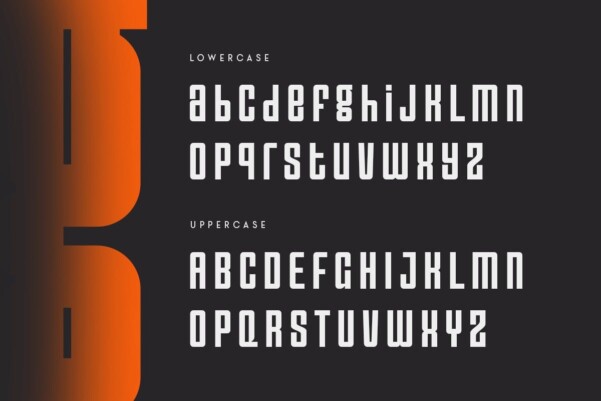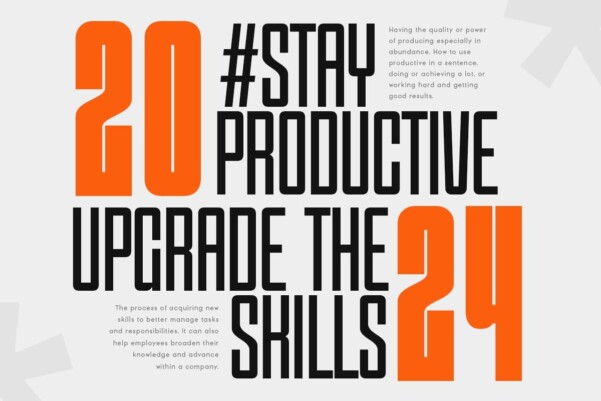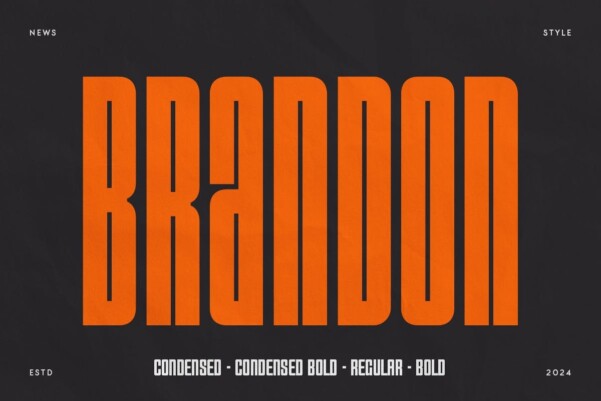
Brandon Condensed Font
Brandon Condensed Font, a unique condensed title font family we created especially for professional and modern title needs. It will give you a more unique appearance and a more effective surface . With 4 uniquely shaped weights, it will be ready to add value to your design. It’s so nice to reach out to a designer or product owner who needs solutions to make their design look more professional and modern. And especially for this font, we have prepared 4 weights to help you create unlimited variations to meet your creative needs.